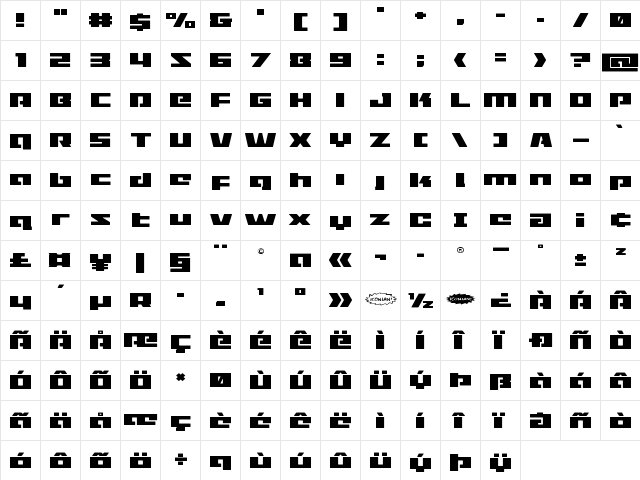
Turbo Charge Expanded Expanded
Expanded ·  Daniel Zadorozny ·
DesignerDaniel Zadorozny
Design Context for Turbo Charge Expanded Typeface
Turbo Charge Expanded is a composed and adaptable typeface that performs quietly and consistently across a wide range of design contexts.